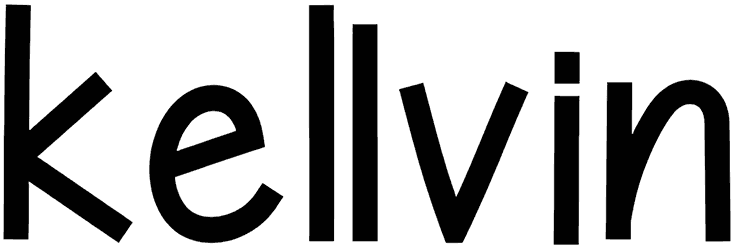
Kellvin Font
If you’re running a critical project and absolutely don’t want to fail, take a look at Kellvin. This sans serif font has a significant effect on the harmony and overall feeling of your designs and can take any of your raw ideas from zero to the championship platform.
Because it is a formal and professional design with a personal touch, it looks good in any fun project, such as children’s posters, animations, and computer games.